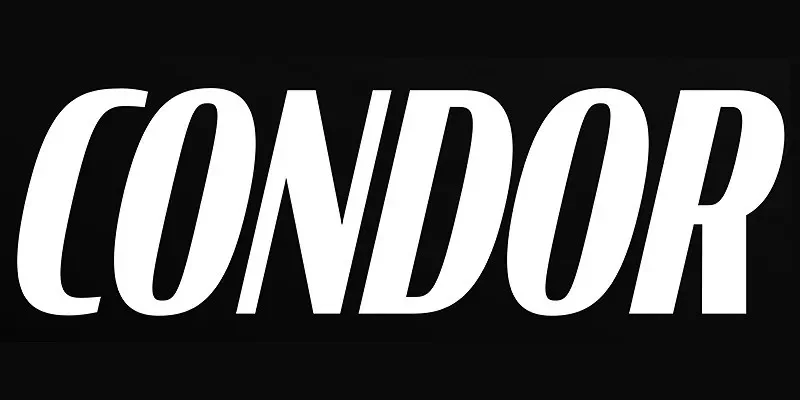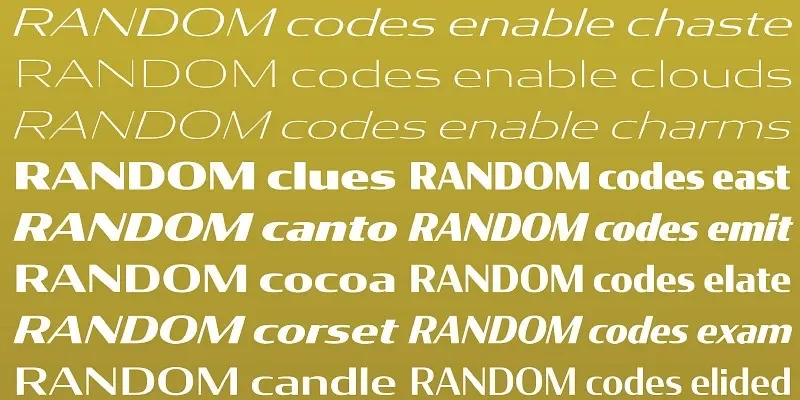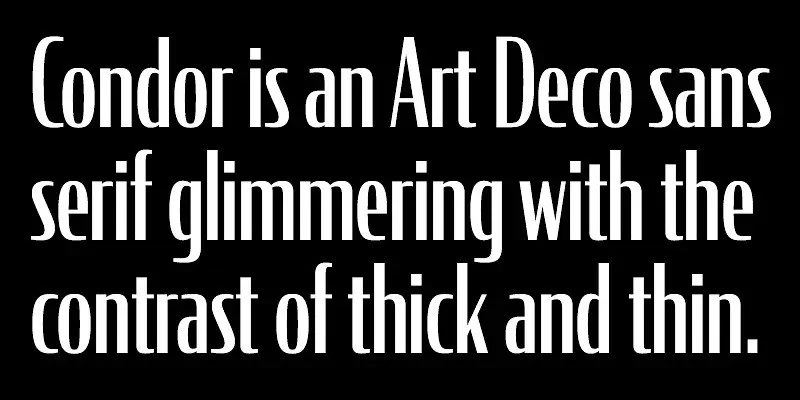
Condor Font Family addresses the need for bold, space-efficient typography in headlines and branding. Many display fonts struggle with clarity when used across print and digital formats.
Condor is a display sans-serif font family with condensed proportions, firm strokes, and sharp edges. The letterforms emphasize verticality, allowing more characters per line without sacrificing recognition.